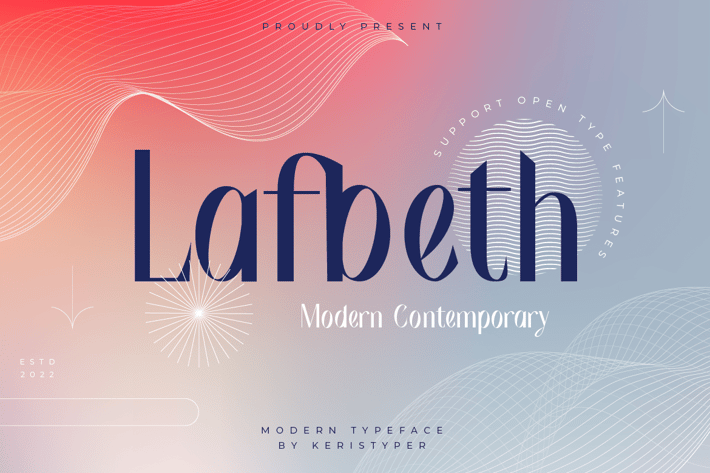
Lafbeth Font
Lafbeth is a contemporary and stylish display sans serif font inspired by art deco style. This font is good for logo design, Social media, Movie Titles, Books Titles, short text even long text letters, and good for your secondary text font with sans or serif.
Standard Uppercase & Lowercase
Multilingual : ä ö ü Ä Ö Ü ß ¿ ¡
Alternate & Ligature